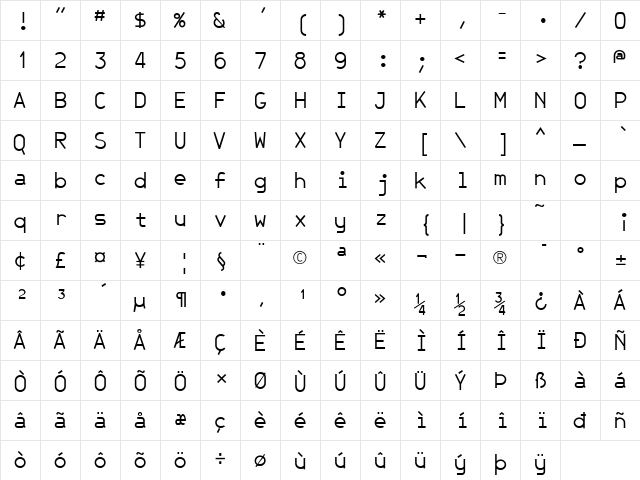
JetJaneMono Plain
Design Context for JetJaneMono Typeface
JetJaneMono brings the precise, column-aligned rhythm of monospaced typography to designs that value technical clarity and systematic order.
A natural fit for code editors, technical documentation, developer-focused branding, and terminal-inspired UI.
Pro Tip: Pair JetJaneMono with a proportional sans for UI contexts where code-style labels and regular body copy need to coexist.